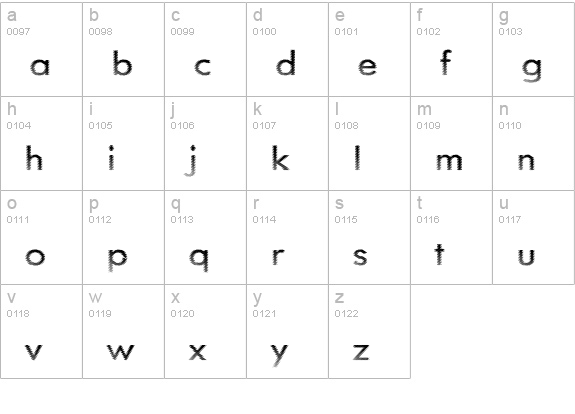
Need Glasses ? Font Details
Introducing Need Glasses ? font, the perfect typeface for adding a touch of whimsy and personality to your designs. This quirky and fun font is sure to make a statement and grab attention. Whether you're working on a poster, logo, or any other creative project, Need Glasses ? font is here to help you stand out. Best of all, Need Glasses ? font is available for free download at FontsMarket.com. That's right, you can get your hands on this unique font without spending a dime. So why wait? Add a pop of creativity to your designs with Need Glasses ? font today!